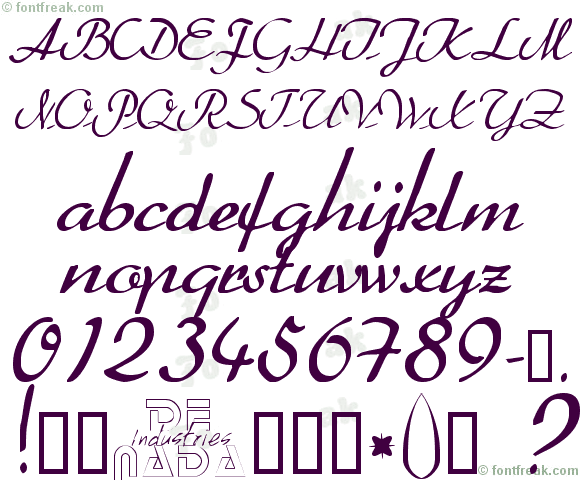
Heather
About Heather
Heather is a beautifully crafted script font designed by Mike Allard, categorized under decorative typefaces. This font exudes elegance and sophistication, making it an ideal choice for a variety of creative projects. The strokes in Heather are fluid and graceful, with a moderate contrast that enhances its readability while retaining its artistic flair. The spacing is well-balanced, allowing for a seamless flow of letters that captures attention without overwhelming the reader. Decorative elements, such as swirls and loops, contribute to its unique character, making it a perfect fit for designs that require a personal touch.
This font shines in multiple use cases, particularly in wedding invitations, where its romantic style can beautifully convey heartfelt messages. Additionally, it is well-suited for restaurant menus, as it adds a touch of class that elevates the dining experience. Movie posters can also benefit from Heather's dynamic presence, drawing viewers in with its artistic charm. Content creators looking to enhance their branding materials will find Heather a valuable asset, as it creates a memorable visual identity. Graphic designers and small business owners seeking to infuse their projects with a sense of creativity and warmth will appreciate the versatility that Heather offers.
What sets the Heather font apart is its ability to merge functionality with artistic expression. Whether used in print or digital formats, this font maintains its integrity and charm, allowing it to stand out in a crowded field of typefaces. The option for a Heather font free download makes it accessible for anyone looking to enhance their design projects with a touch of elegance. With its unique characteristics and broad appeal, Heather is sure to leave a lasting impression on your audience.